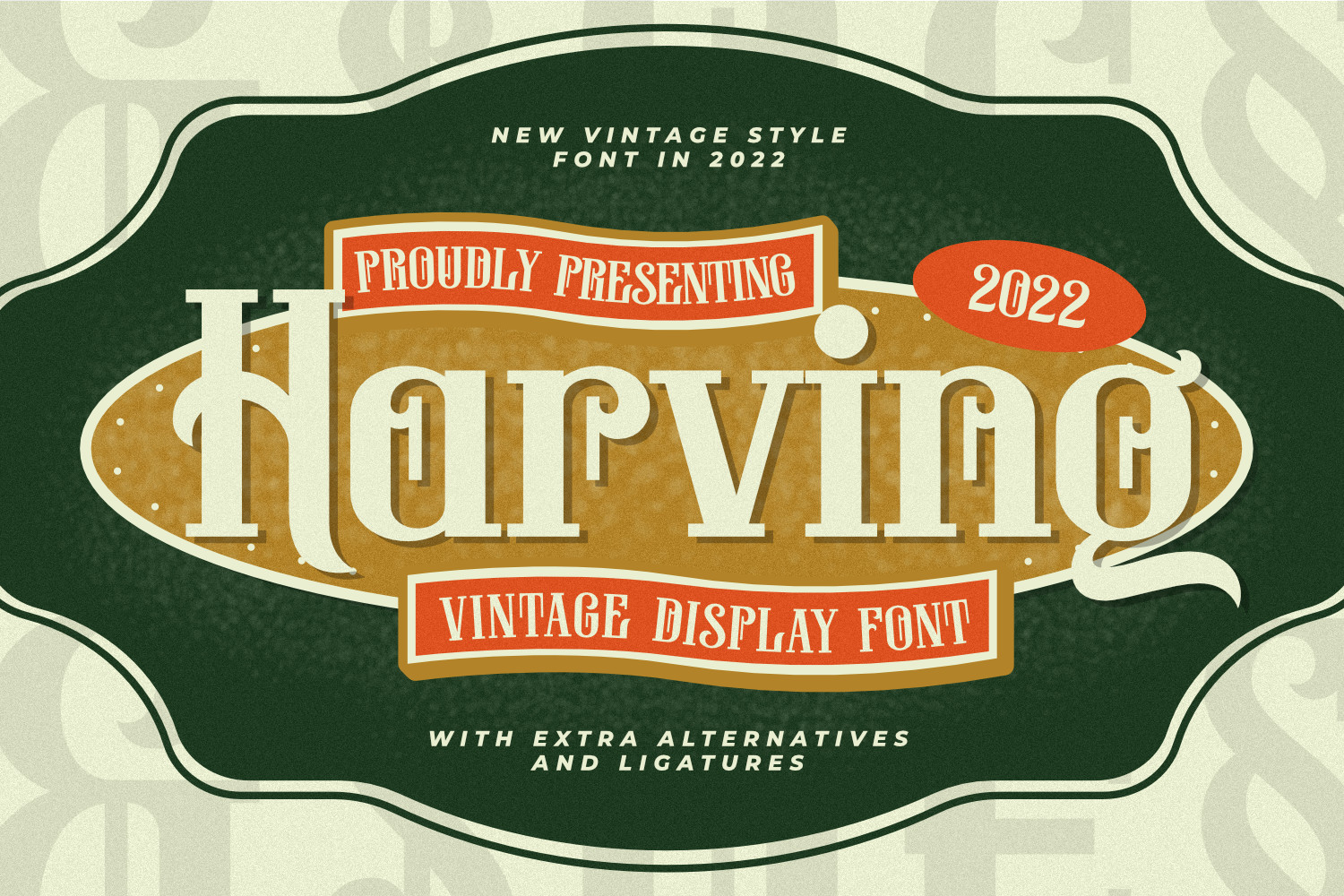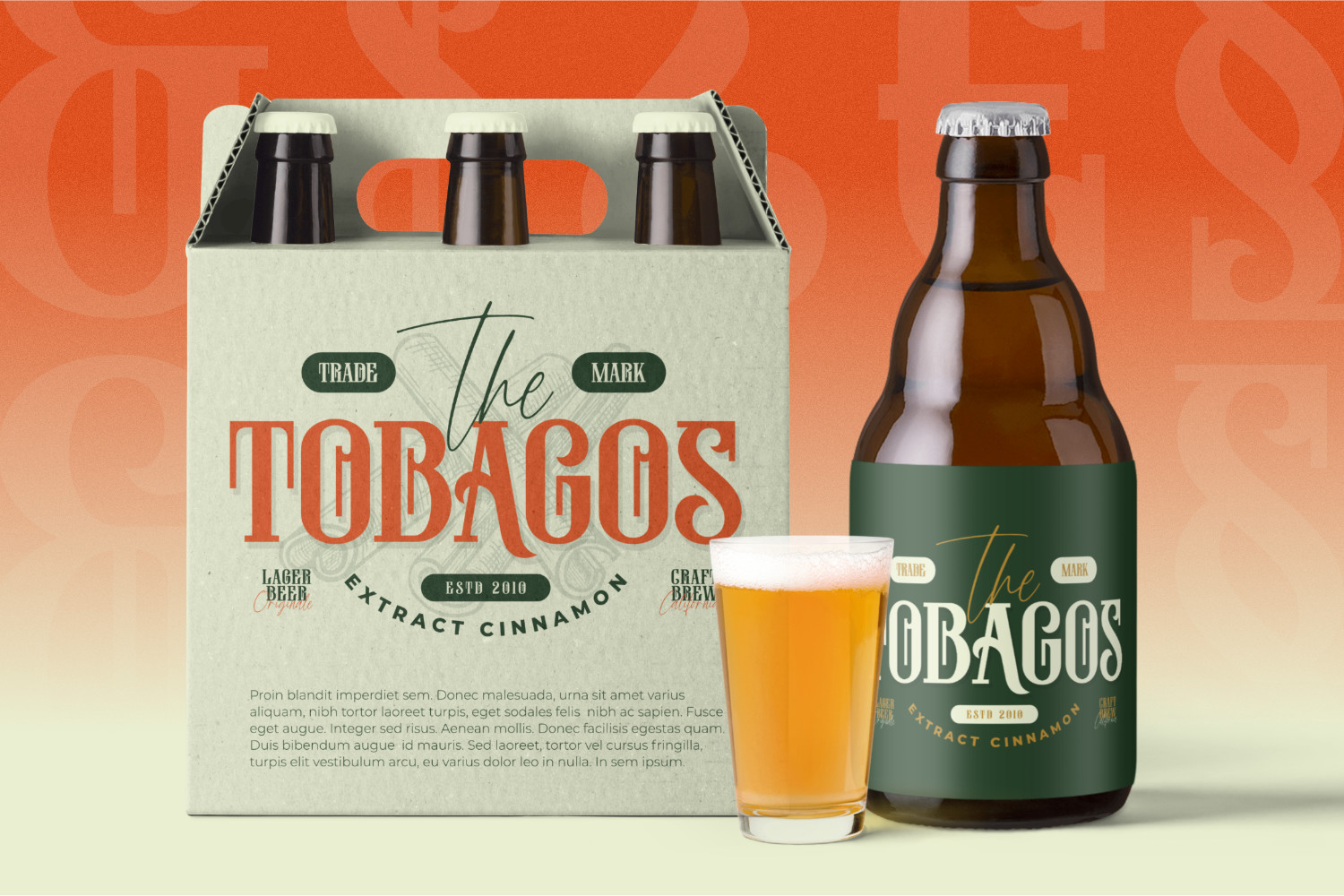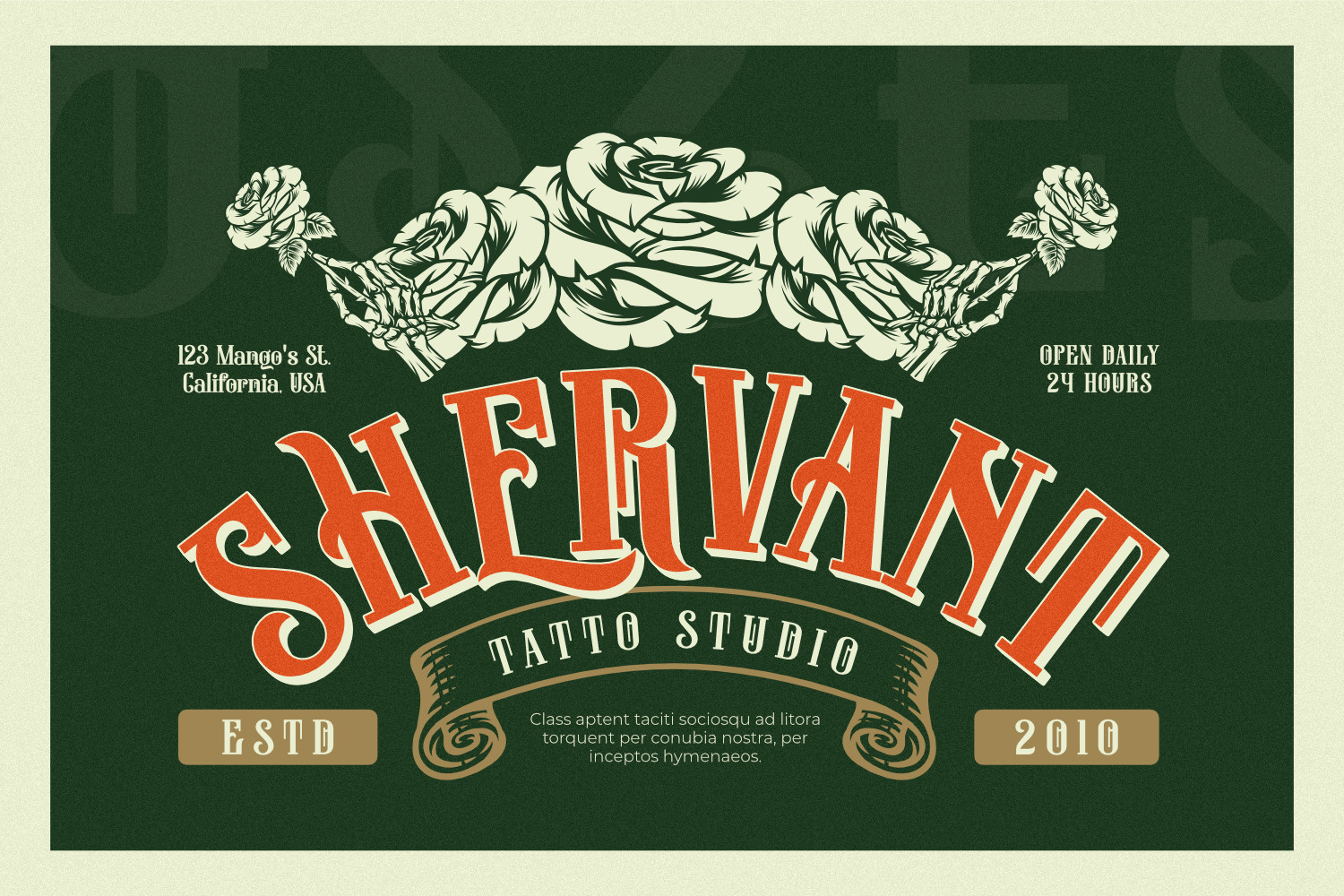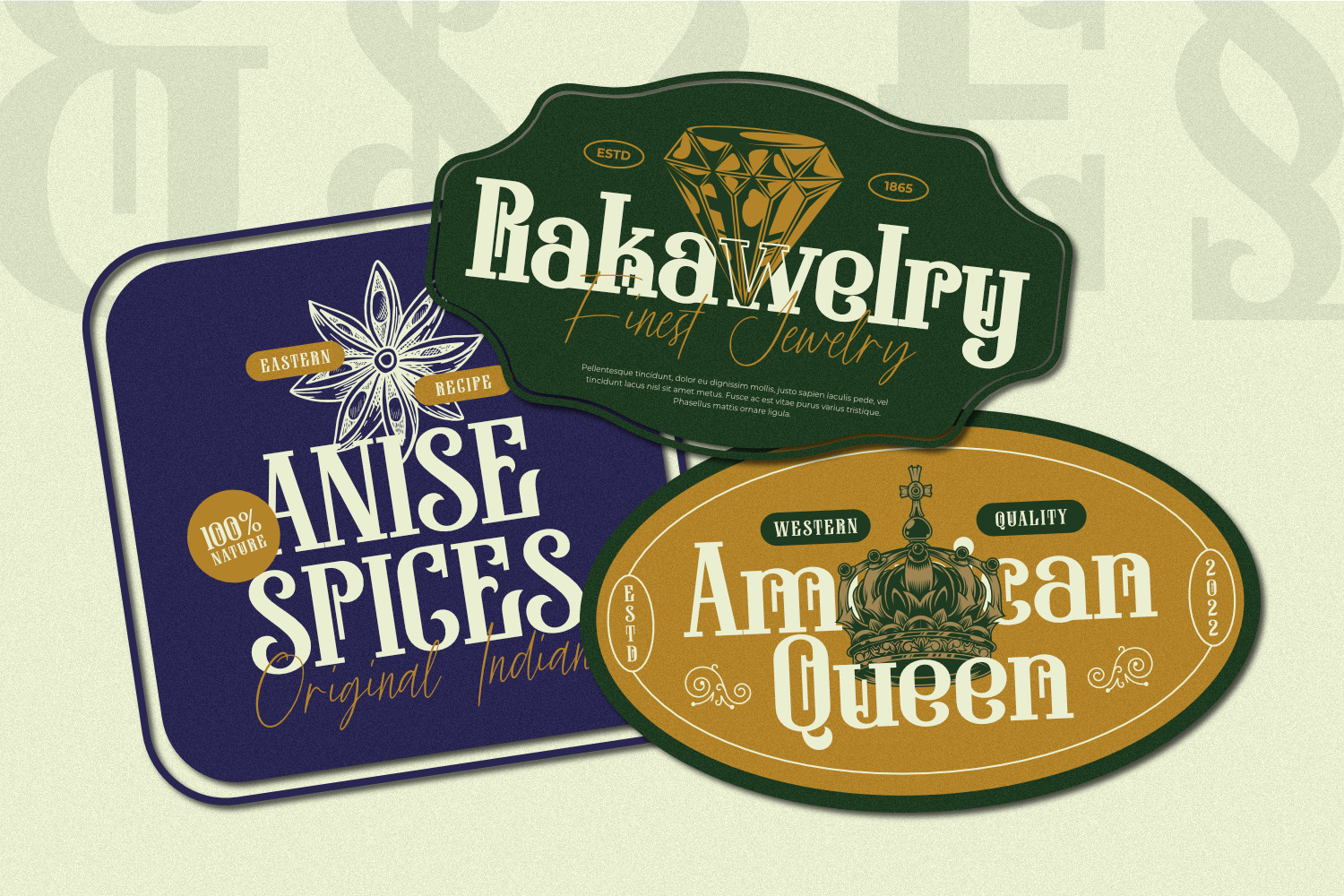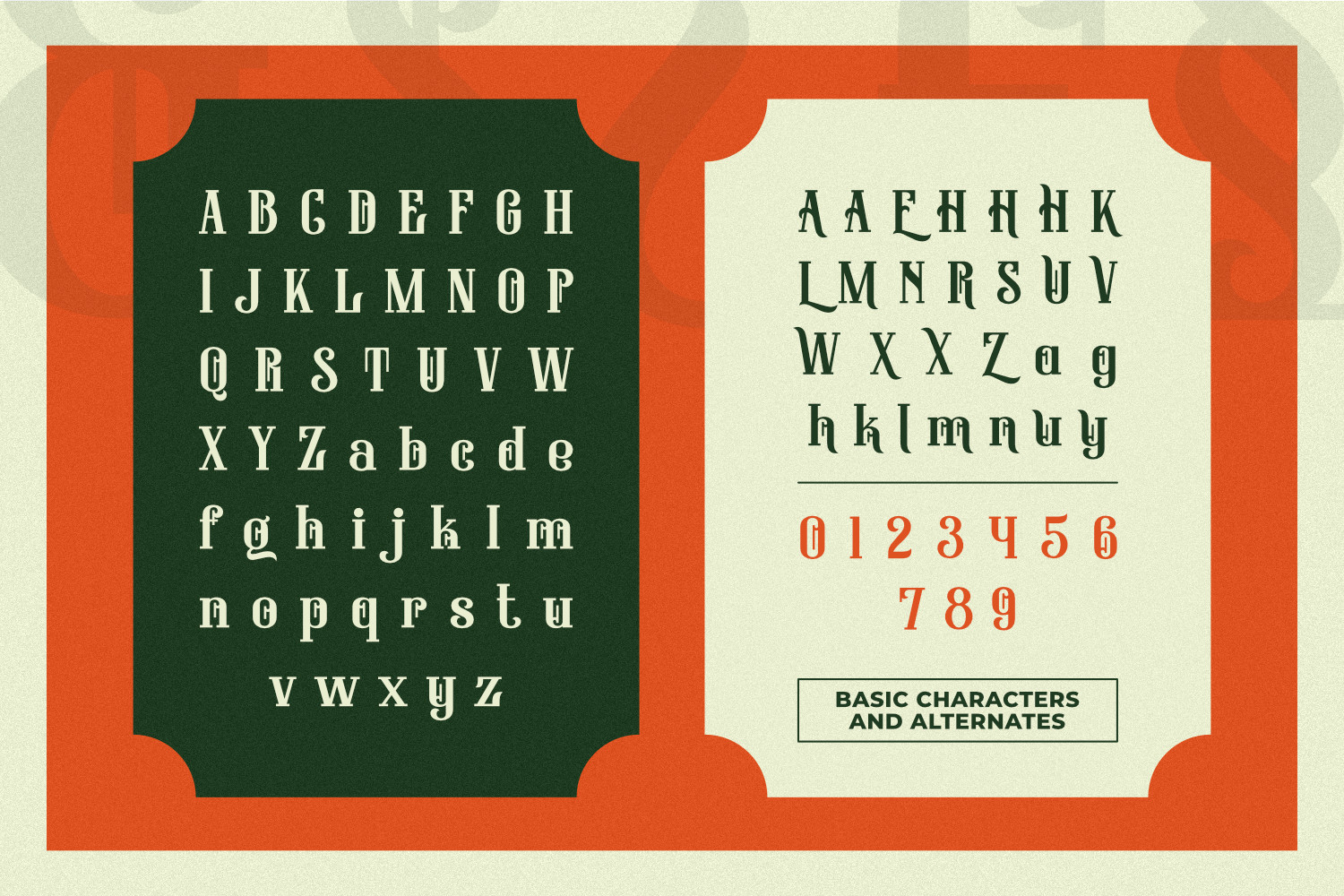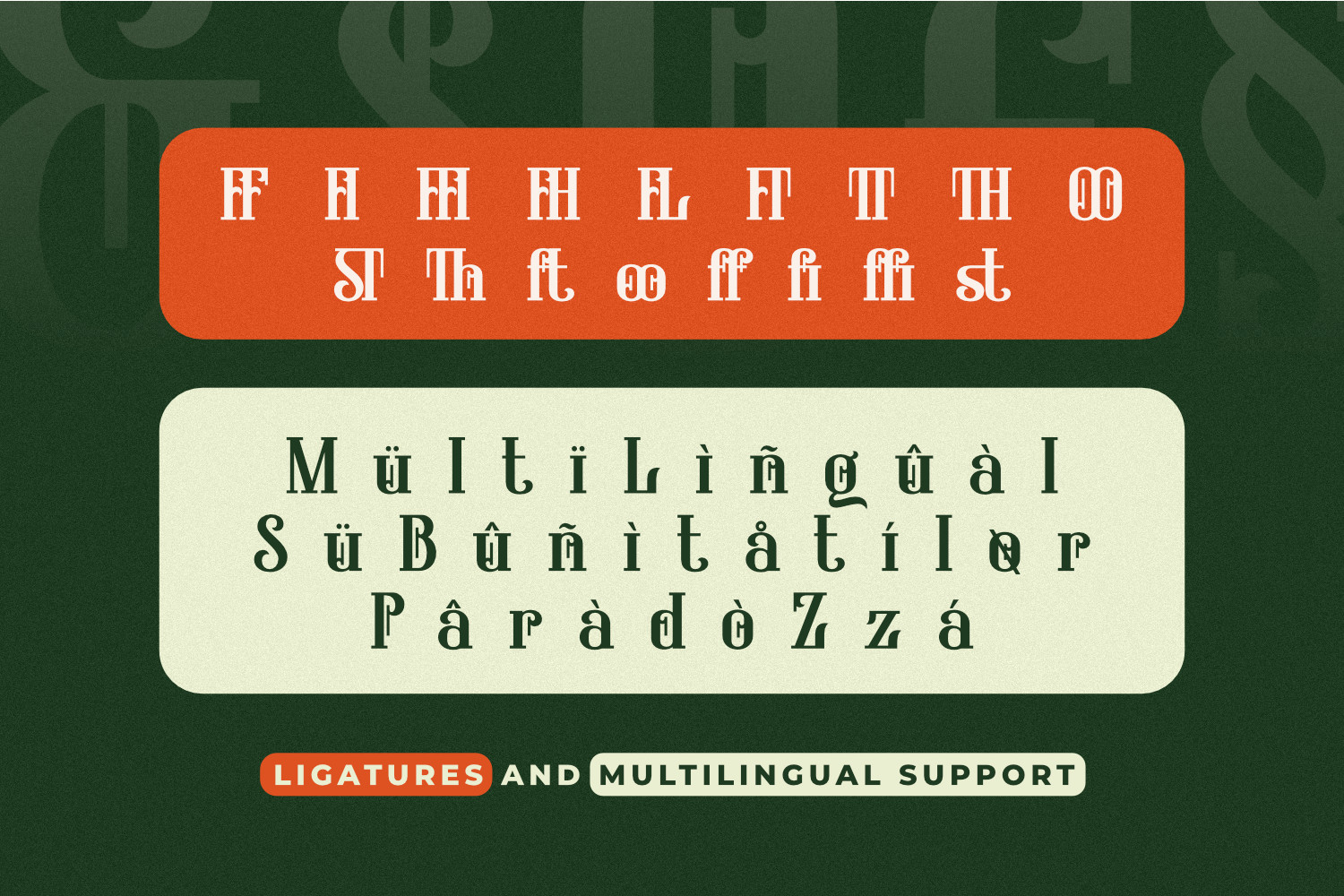
Harving is a bold vintage display font that draws inspiration from classic signage, ornate labels, and old-time western aesthetics. It features strong vertical serifs, dramatic contrast, and elegant curves that add a decorative yet assertive personality to any design. With a retro charm, this font is ideal for branding, liquor labels, tattoo studio designs, antique packaging, and bar signage.
Equipped with alternate characters and discretionary ligatures, Harving offers flexibility and flair in customization. Its multilingual support makes it perfect for projects with global appeal, while its vintage detailing ensures it stands out in modern-retro compositions. Whether used for logotypes or display headlines, Harving brings a touch of traditional craftsmanship to digital typography.